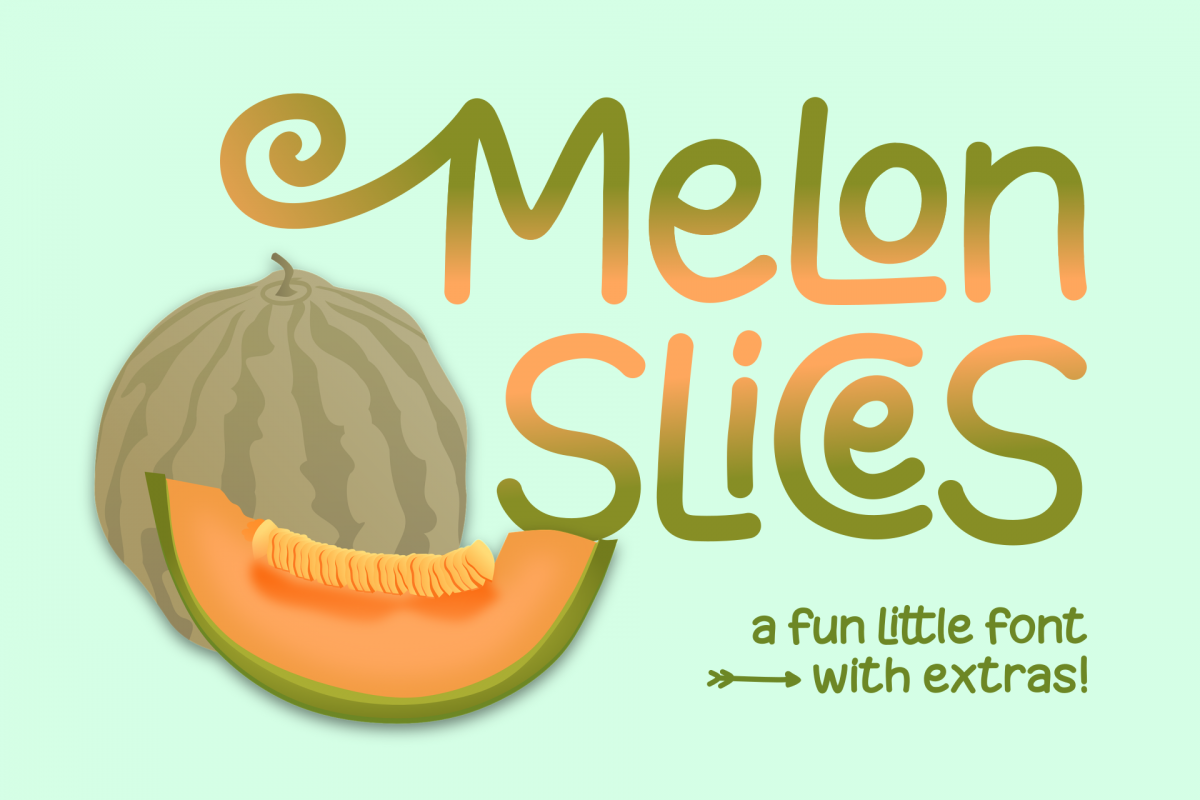
Melon Slices - a fun little font
Melon Slices is a pair of fonts perfect for all of your fun designs.
You also get Melon Slices Doodads, swash, icon, arrow head and tail files, etc. so you can be assured they'll work great together!